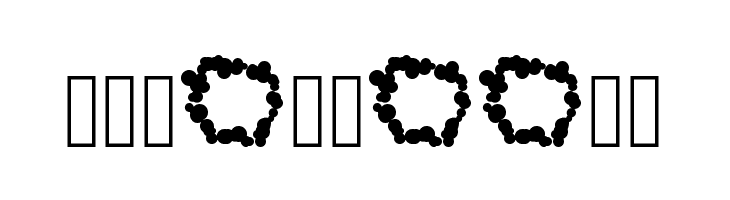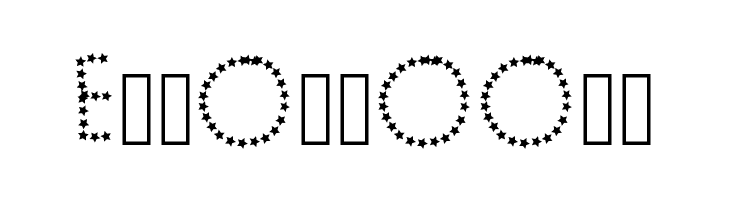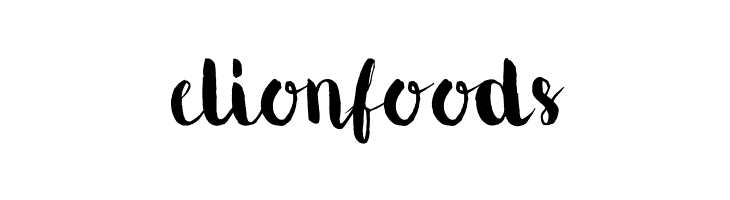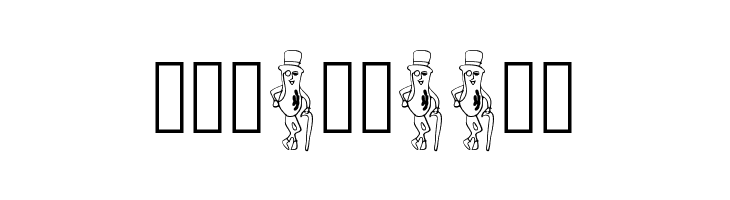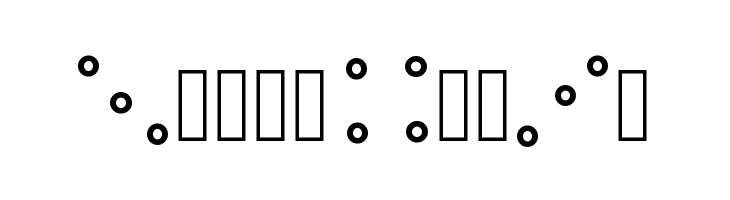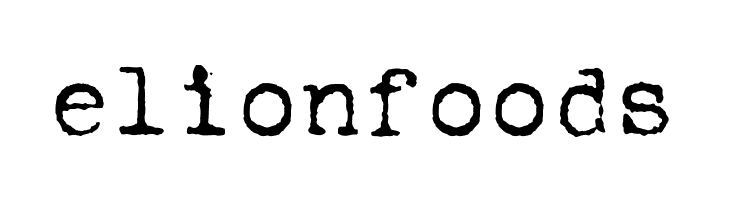
A bold, dramatic serif font with unique, theatrical serifs and strong presence.
A playful, dotted font with a unique and artistic style.
A decorative font made of star shapes, perfect for playful designs.
A bold, brush-style font with dynamic and expressive strokes.
A whimsical and decorative font featuring a peanut character in various poses.
A bold, decorative font with enclosed characters and consistent spacing.
Decorative astronomy-themed font with stars and moon phases.
A vintage typewriter-style font with a distressed, monospaced appearance.
A vintage typewriter-style font with a classic, worn look.
A playful, bold handwritten font with thick, rounded strokes.